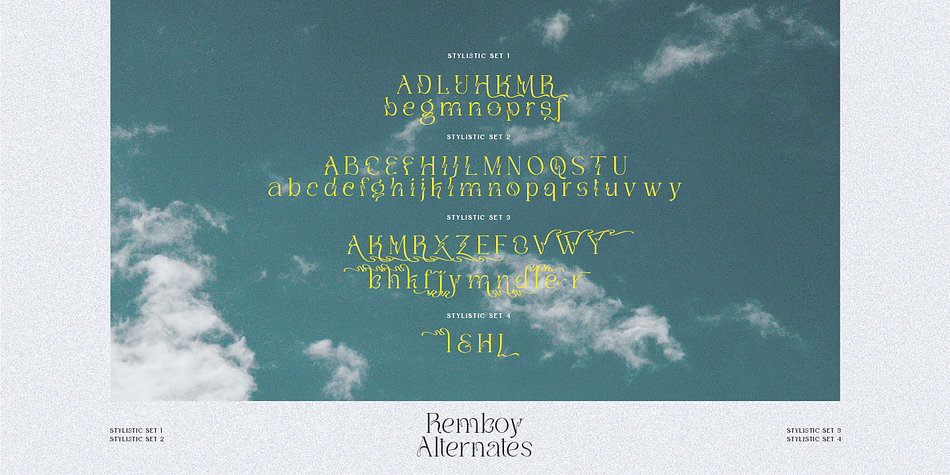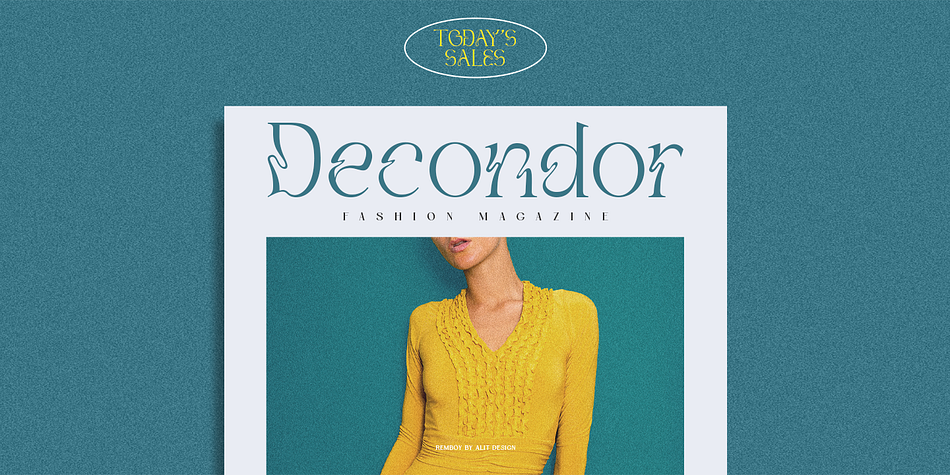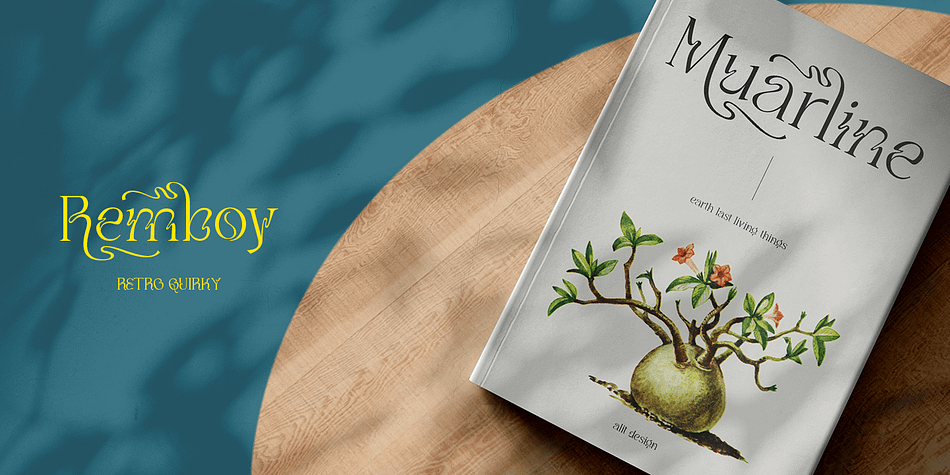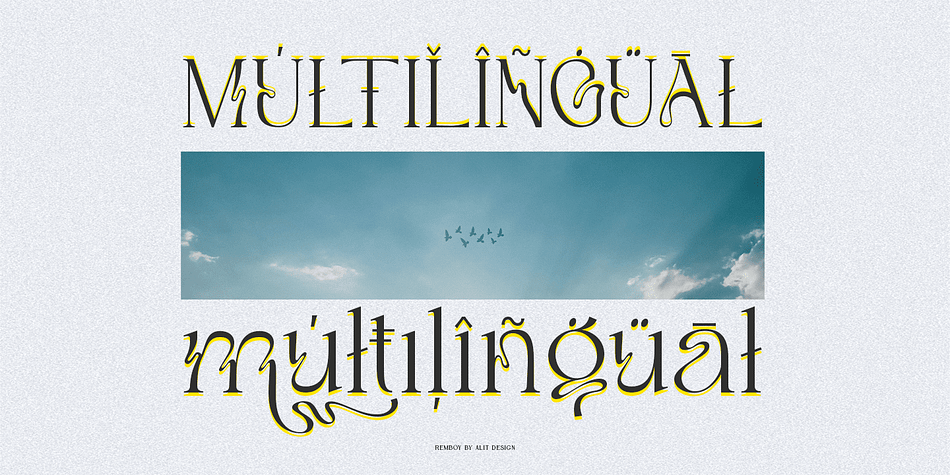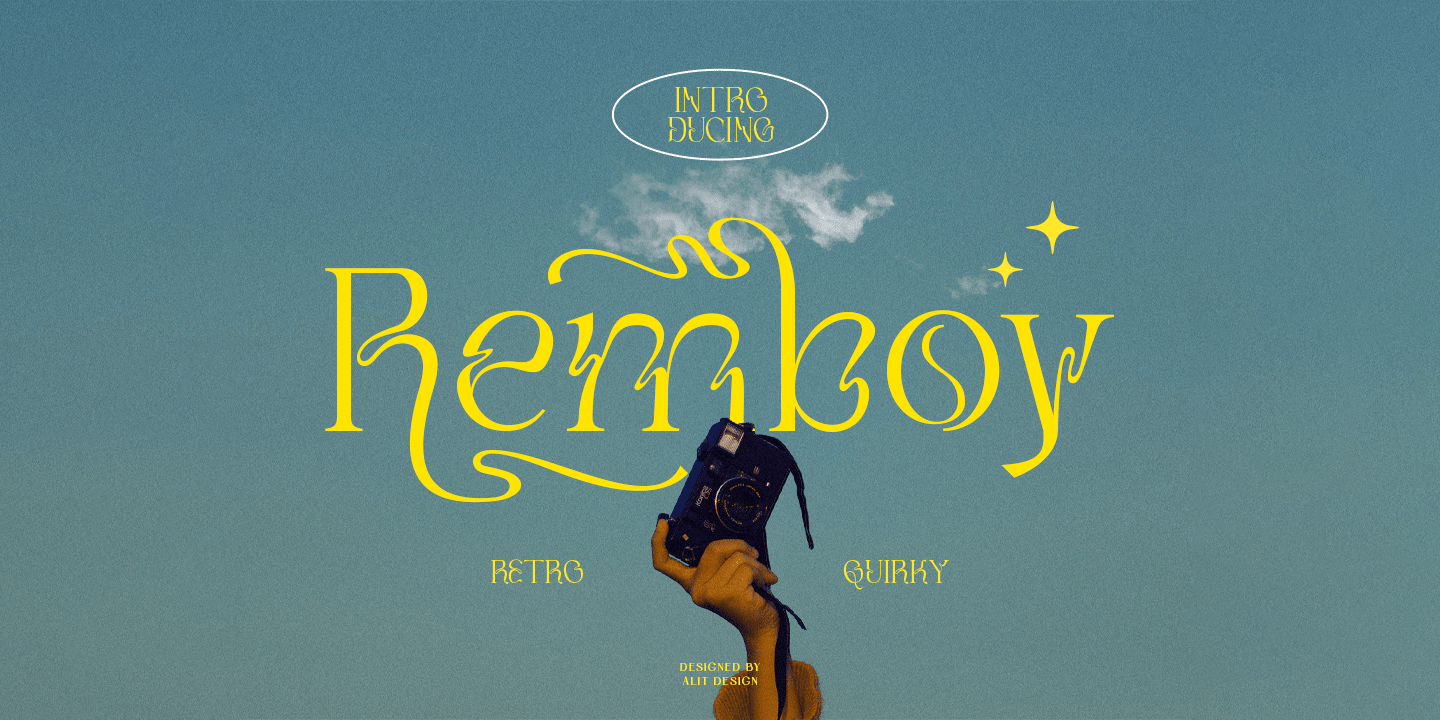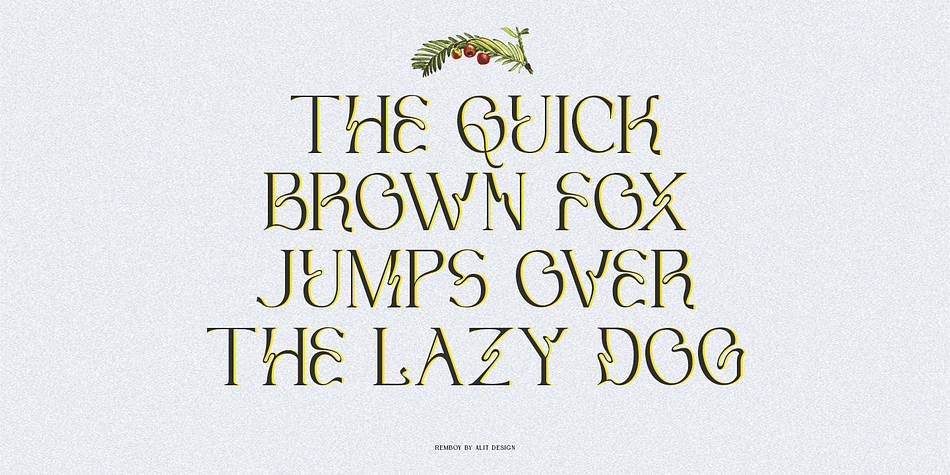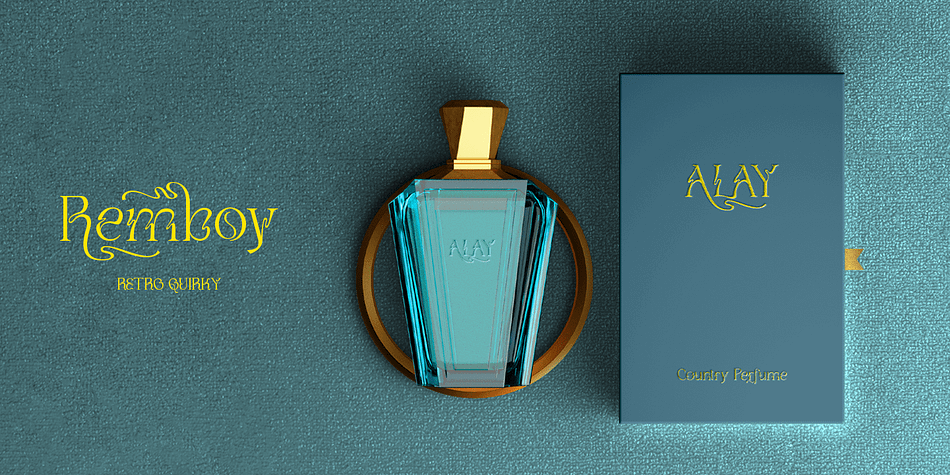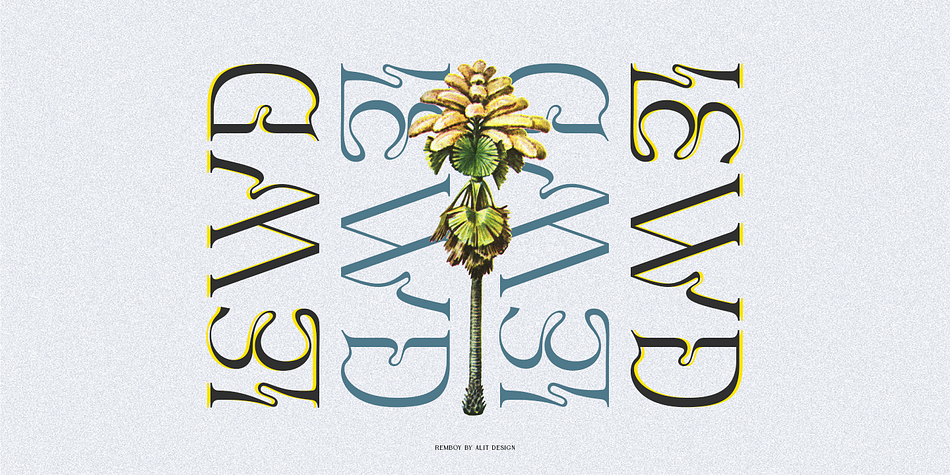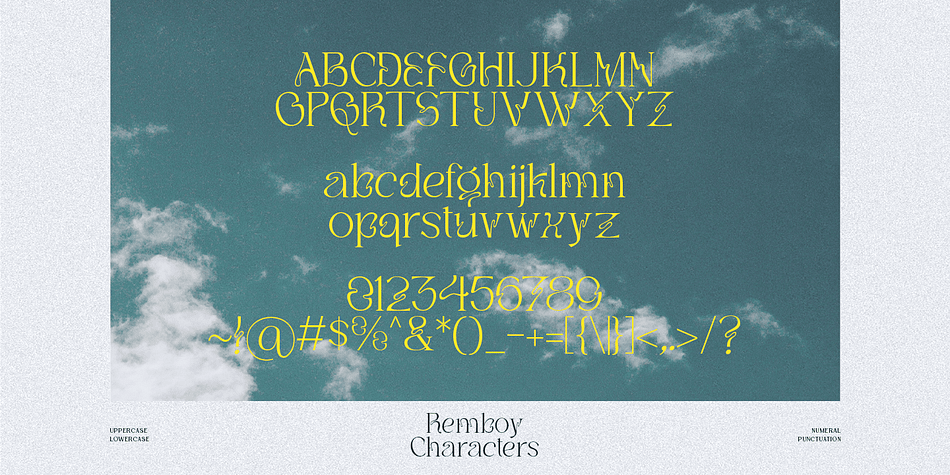
Remboy
Designed by Alit Suarnegara, Remboy is a display font family published by Alit Design.
Introducing Remboy Typeface
The Remboy Typeface is made with the concept of a modern font display that gives a unique impression because it has a curvy shape like waves that is charming and unique. The serif style adopted by the Remboy font is a 2022 style font, has a unique swash alternative, has a large selection of ligatures. In addition.
The Remboy typeface contains 567 glyphs with many unique and interesting alternative options. In the poster preview all the letters are in the Remboy typeface.